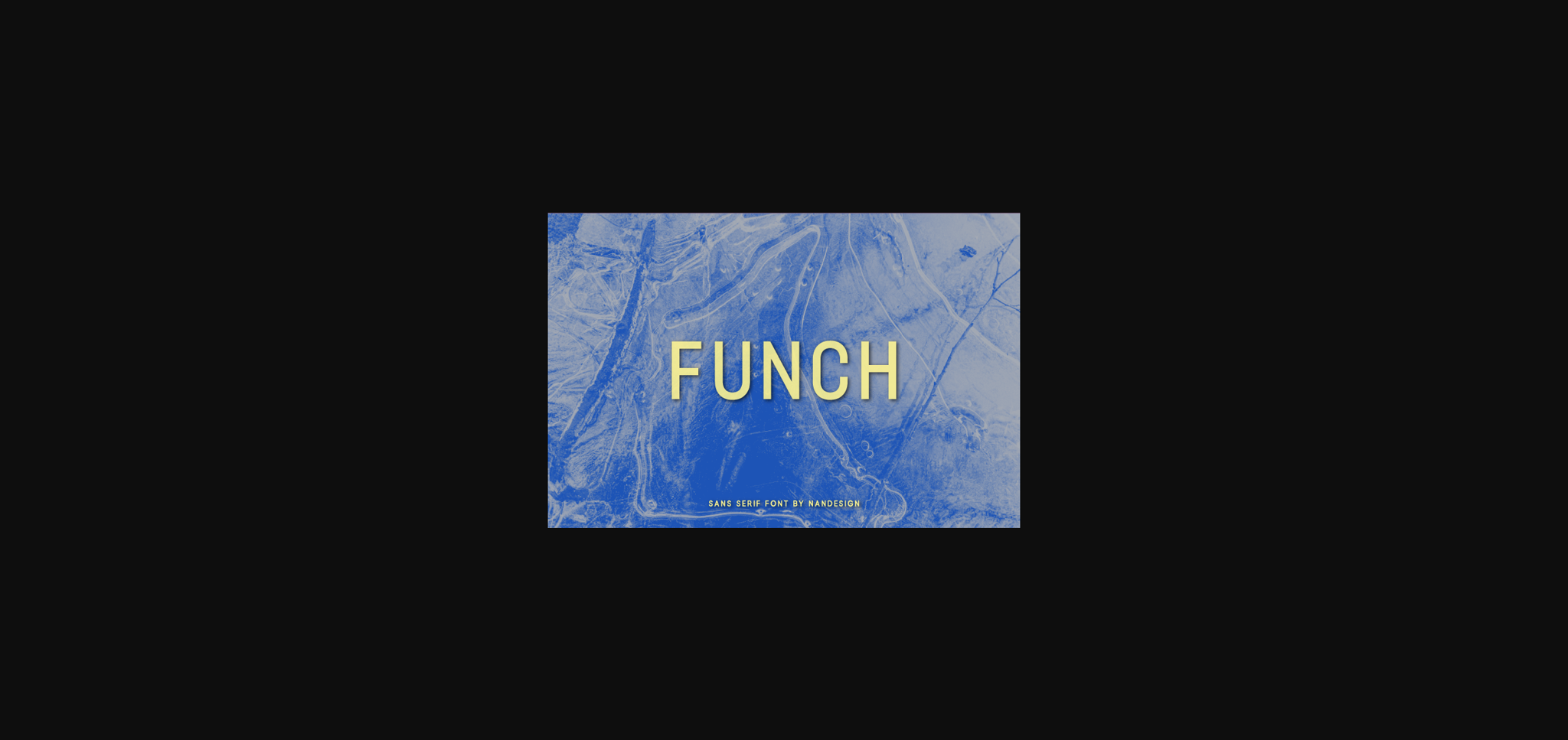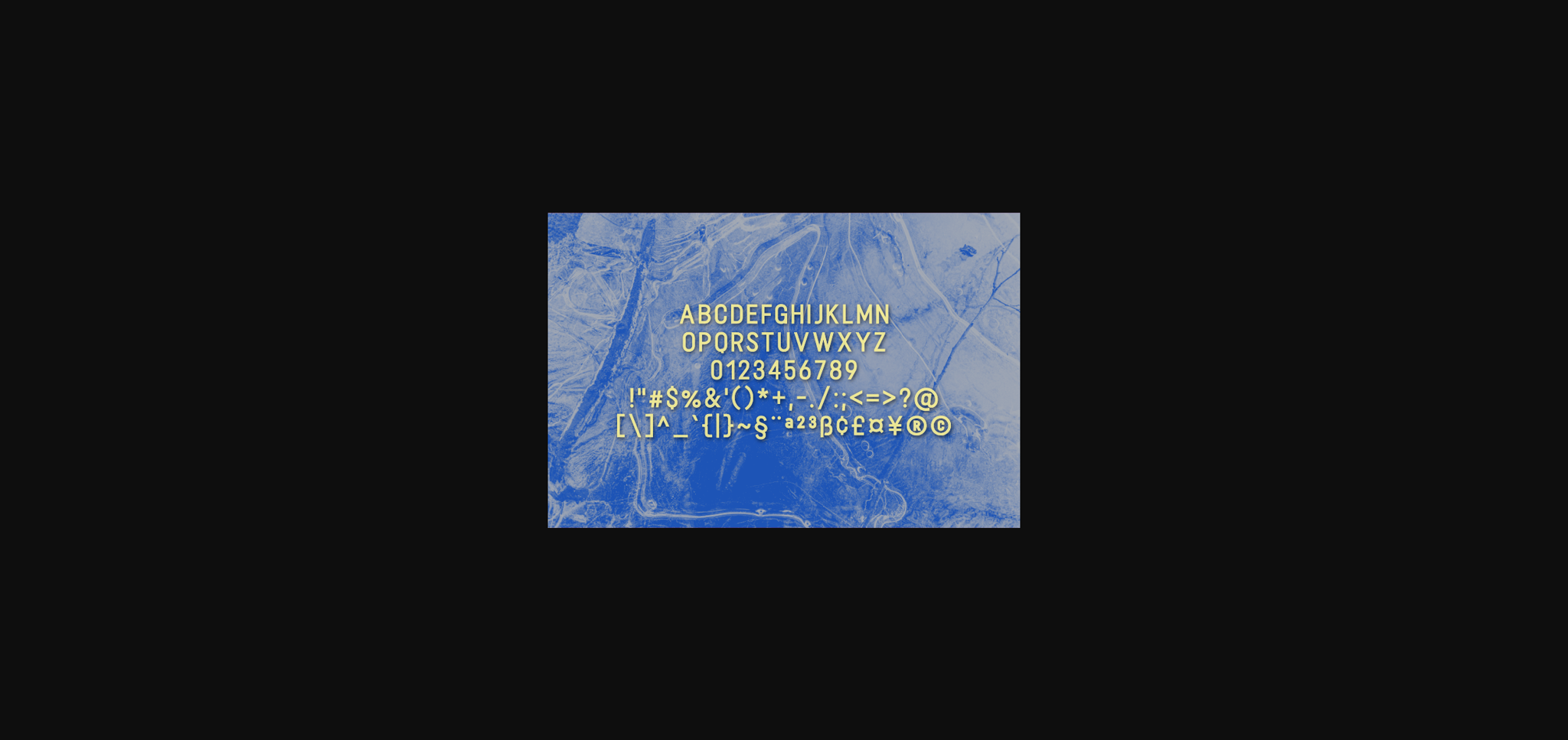
Funch is a clean and fresh sans serif font. It can easily be matched to an incredibly large set of projects, so add it to your creative ideas and notice how it makes them stand out!